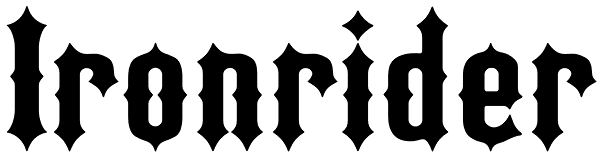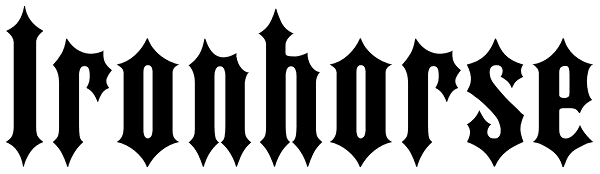
Iron
The Iron Family is a revival of two classic wood type fonts, but with a modern necessity: the addition of a lowercase character range. With a recent history of identifying everything from Little League teams to chopper magazines, the influence of...
Ironrider
Ironhorse